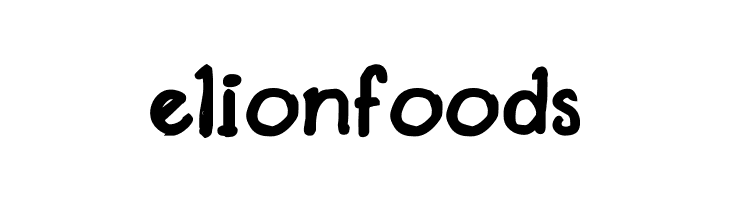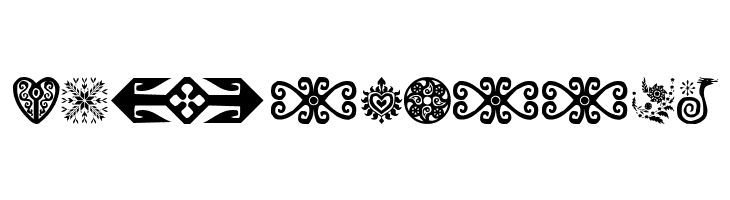
A playful, rounded font with a hand-drawn appearance and consistent thickness.
A bold, decorative font with high contrast and artistic flair.
A textured, distressed font with a modern, graffiti-like style.
A dynamic, handwritten font with fluid, expressive strokes and a casual elegance.
An ornate and decorative font featuring intricate patterns and embellishments.